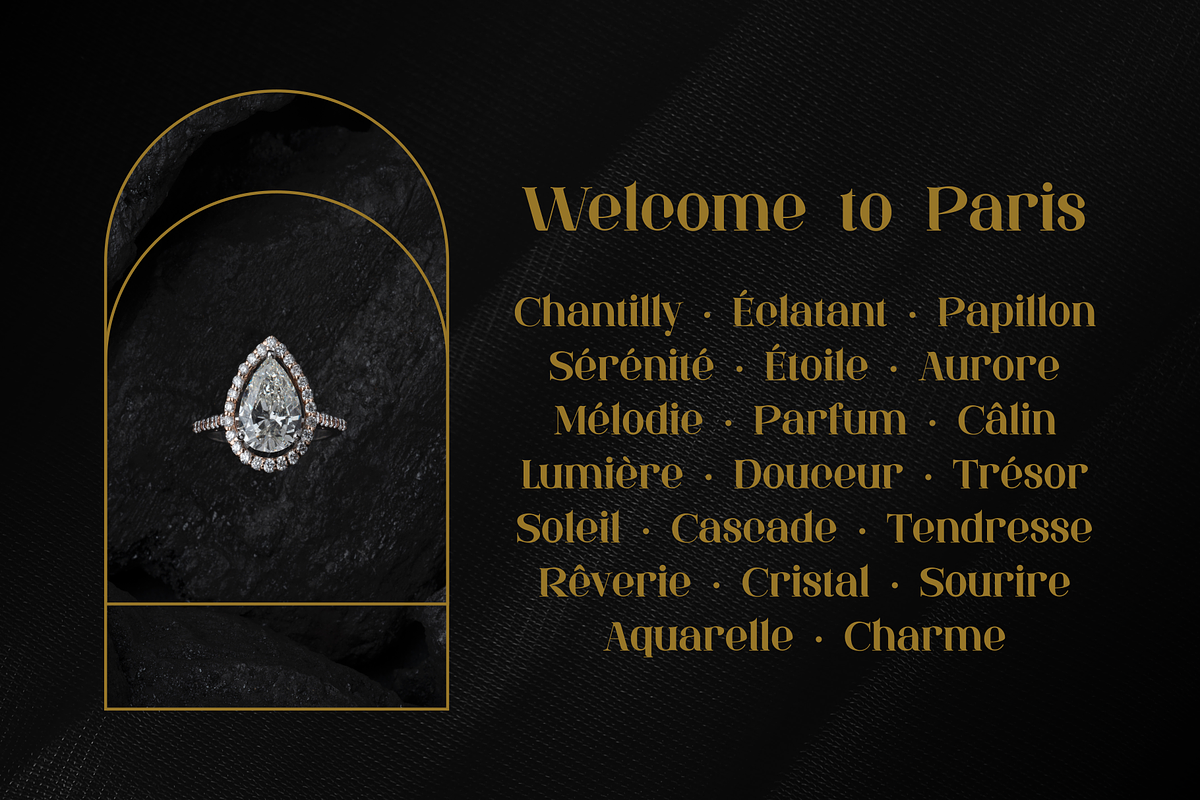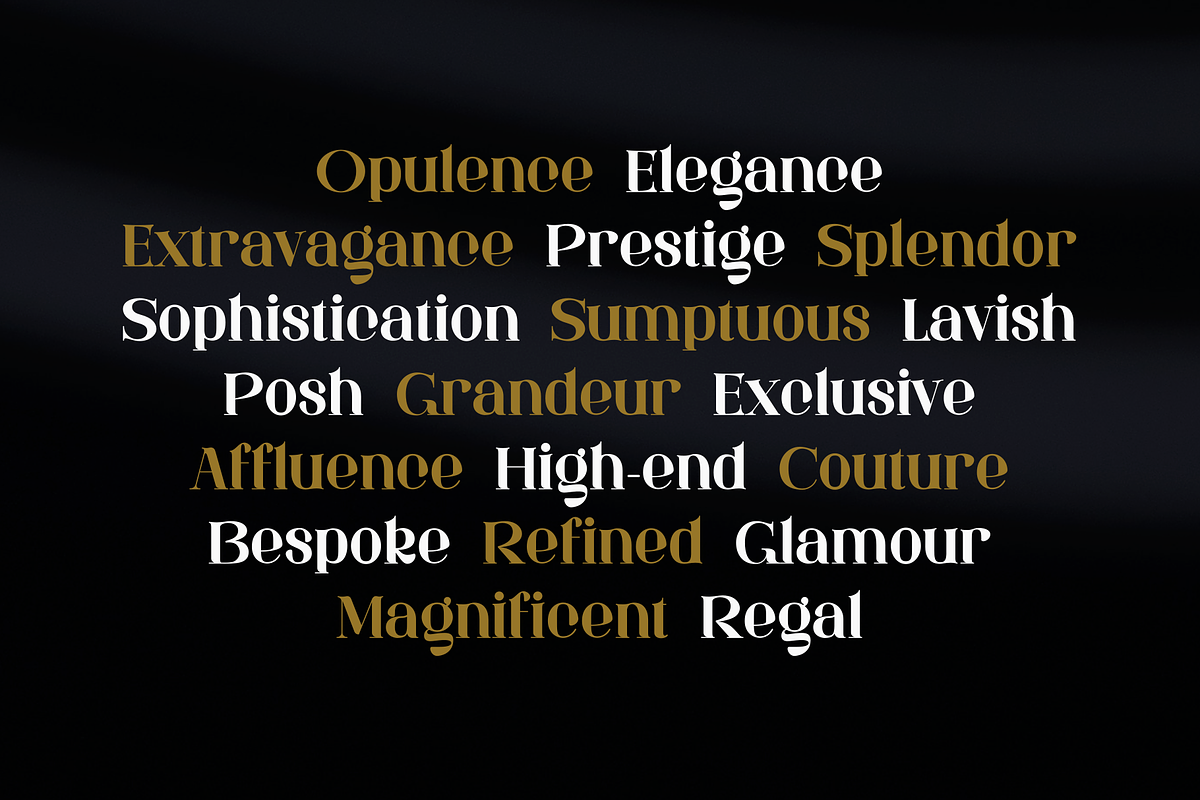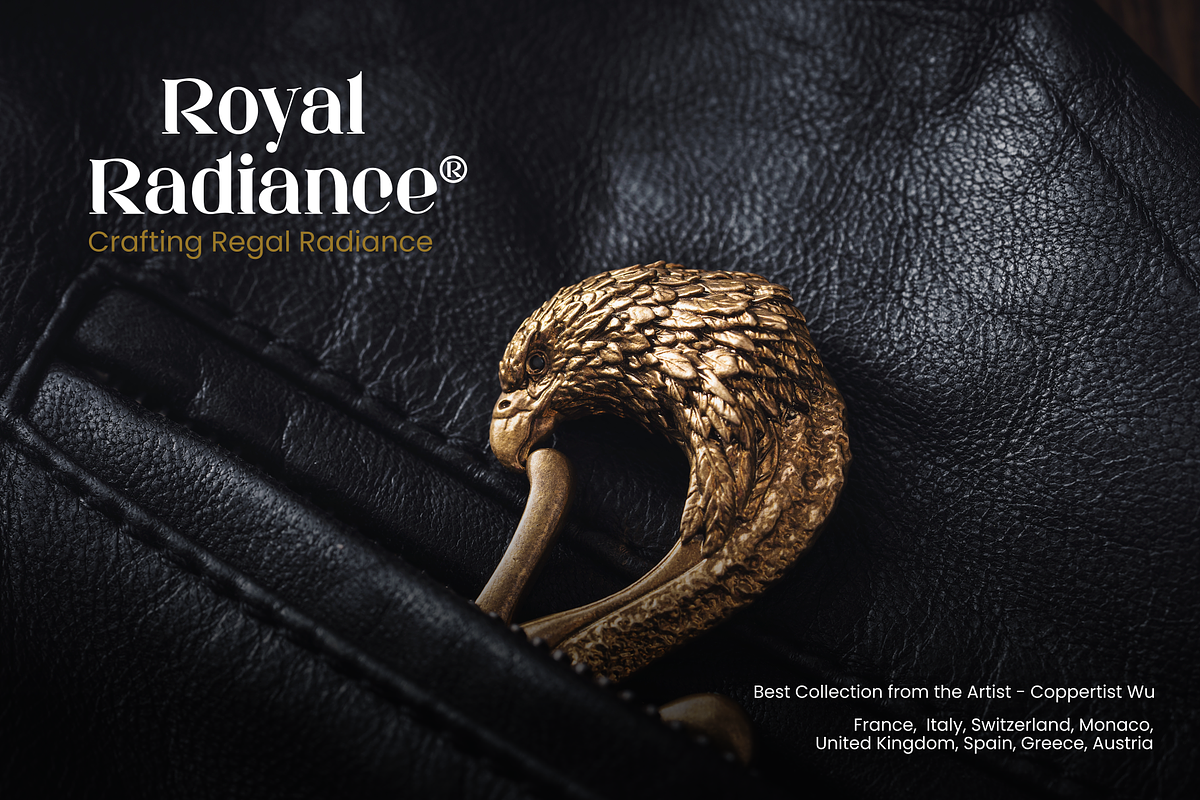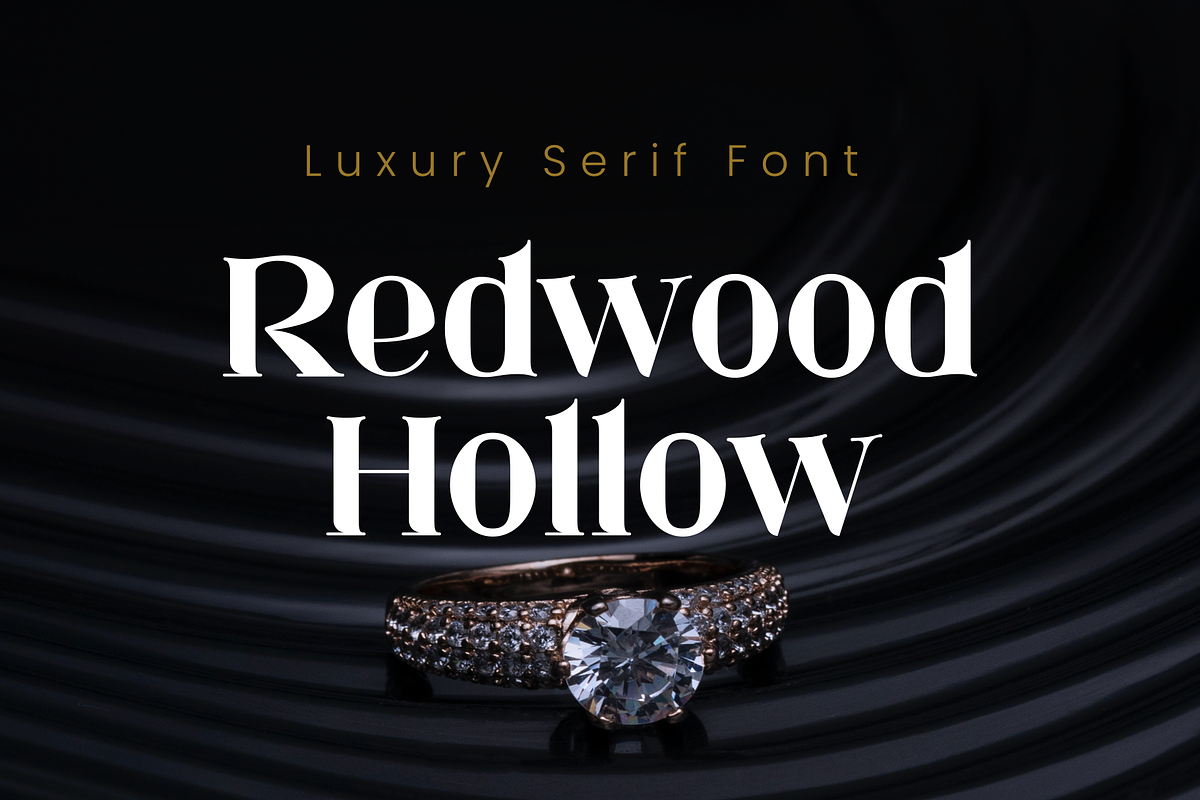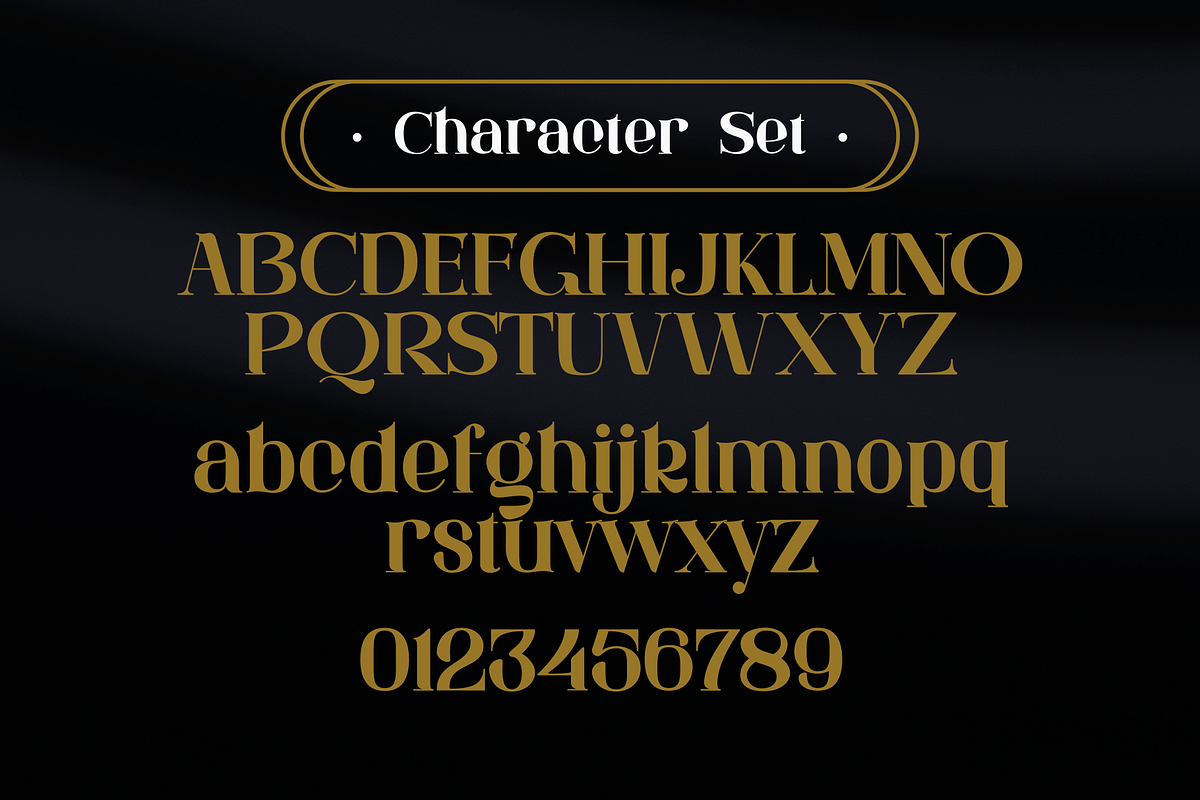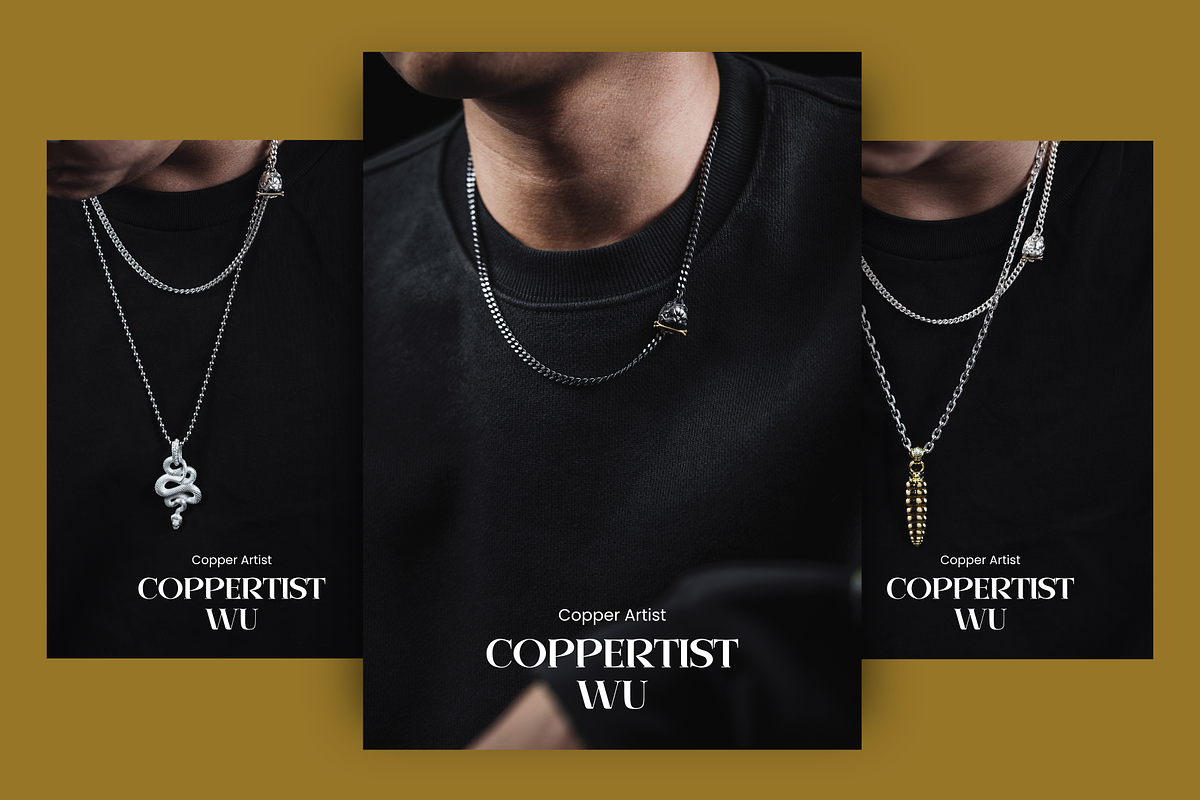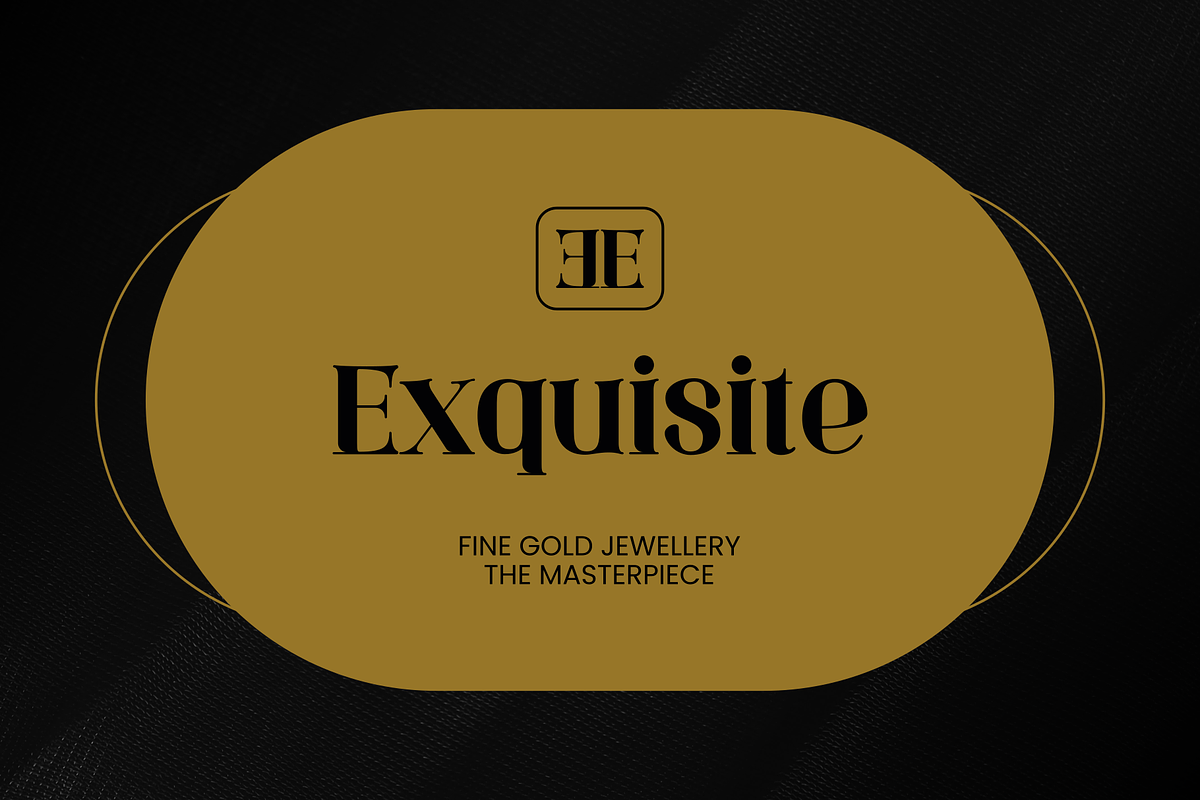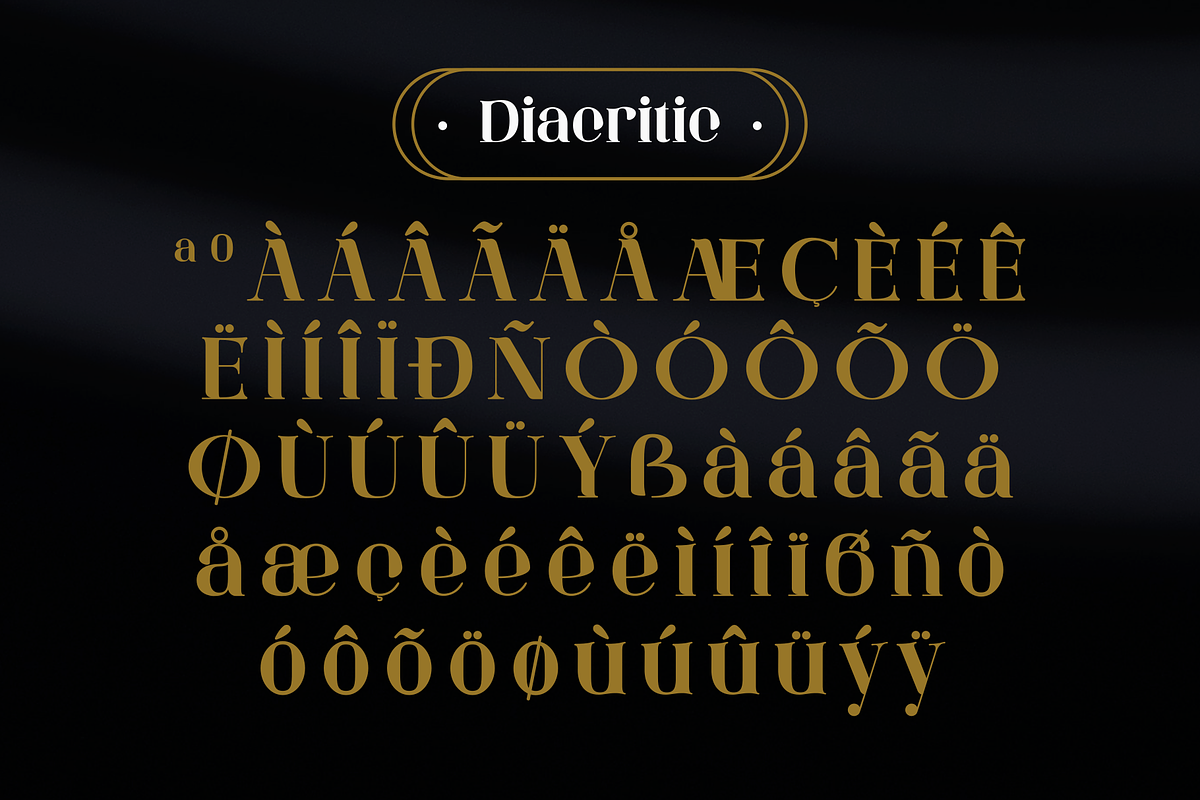
Redwood Hollow
Redwood Hollow-Luxury Serif Font is an exquisite typeface that exudes elegance and sophistication. Its timeless serifs and intricate details make it the perfect choice for adding a touch of luxury to your design projects.
With its graceful curves and impeccable craftsmanship, Redwood Hollow-Luxury Serif Font brings a sense of opulence to every letter, making it an ideal choice for branding, invitations, and editorial design.